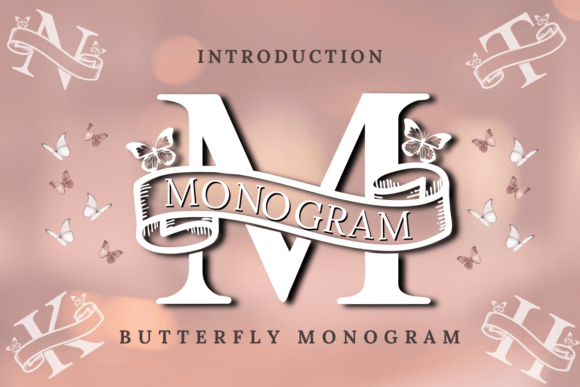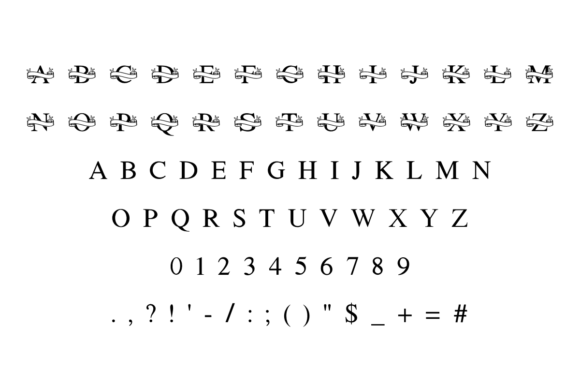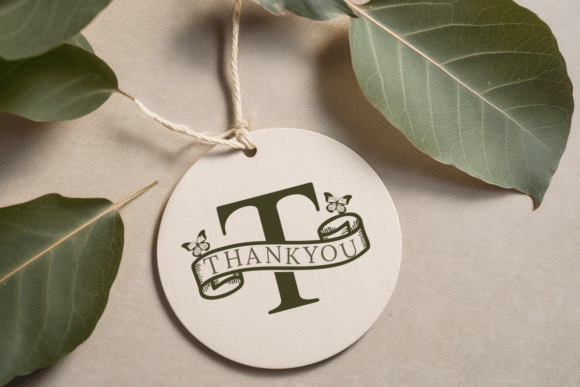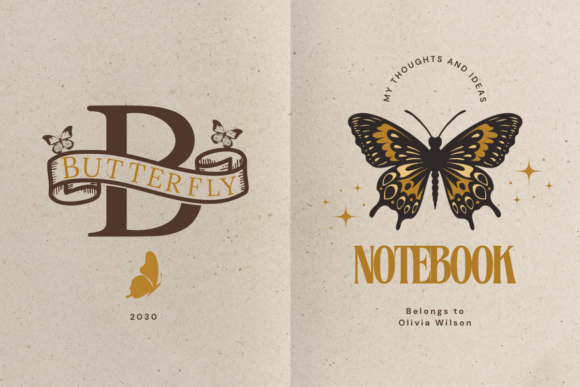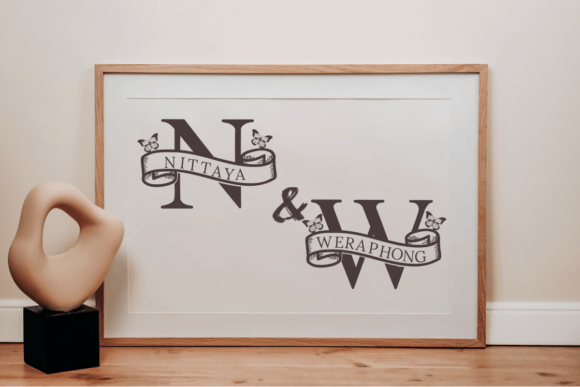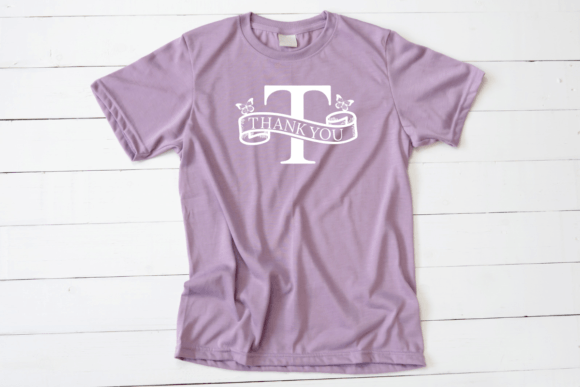
The Magic of Butterfly Monogram Font
Do you remember that moment when you stumbled upon the perfect font for your design project, and everything just clicked into place? It’s a feeling that’s hard to describe, but it’s a mix of excitement, relief, and pure creative joy. For many designers, that moment came when they discovered the Butterfly Monogram Font.
This beautiful font features elegant butterfly designs that adorn each letter of the alphabet, making it a true masterpiece. Whether you’re creating personalized items, invitations, or any other project, the Butterfly Monogram Font adds a unique and artistic touch that’s sure to impress. Its versatility and beauty make it a valuable addition to any designer’s toolkit.
Key Features of Butterfly Monogram Font
- Font Type: Monogram font, ideal for creating custom initials and logos
- Unique Characteristics: Hand-drawn design, featuring delicate and intricate details, perfect for creating elegant and sophisticated designs
- Characters: Includes uppercase and lowercase letters, numbers, and punctuation marks, as well as special characters and symbols for added versatility
Designer Review: Butterfly Monogram Font
Overall, I was initially drawn to the Butterfly Monogram Font for its whimsical and playful vibe. The intricate details and flourishes give it a touch of elegance, making it suitable for various design projects, from wedding invitations to baby announcements. ✨
Here are some of its strengths:
- Unique and creative design that sets it apart from other monogram fonts.
- Good legibility, even at smaller font sizes.
- ⚠️ Limited font weights and styles, which may limit its versatility in certain designs.
- ⚠️ Not suitable for formal or professional projects, as it may come across as too playful or childish.
- ⚠️ Some characters may require manual adjustment or customization to achieve the desired look.
Overall, I think the Butterfly Monogram Font is a great choice for designers looking for a unique and eye-catching font for special occasions or projects that require a touch of whimsy. While it may not be the best fit for every design project, it’s certainly worth considering for the right applications.
The Butterfly Monogram Font is perfect for:
- Personalized gifts and merchandise